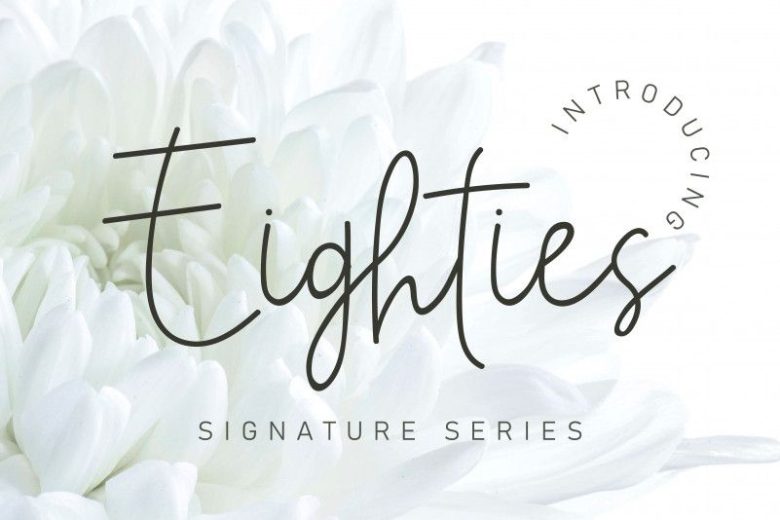
Eighties Font
Eighties Font is a fashionable signature-style script make looks elegant, classy and touch of luxury and stylish.
Eighties is perfect for branding projects, logo, wedding designs, social media posts, advertisements, product packaging, product designs, label, photography, watermark, invitation, stationery and any projects that need handwriting taste.